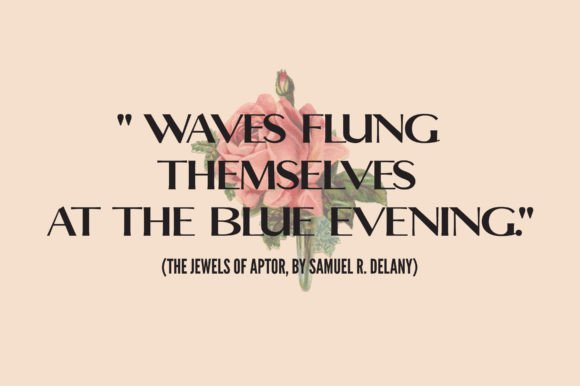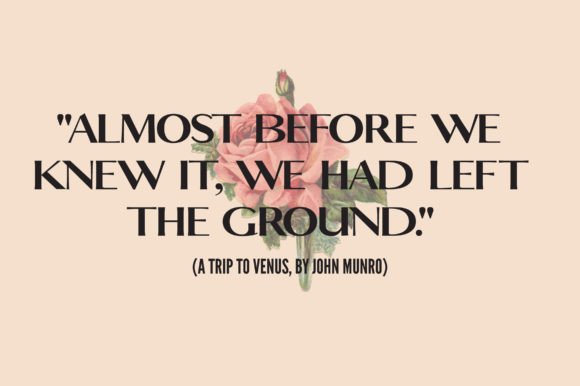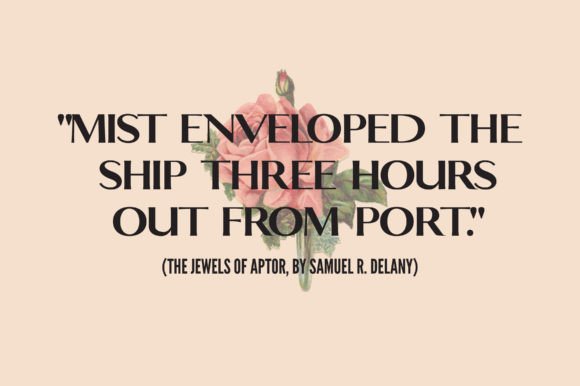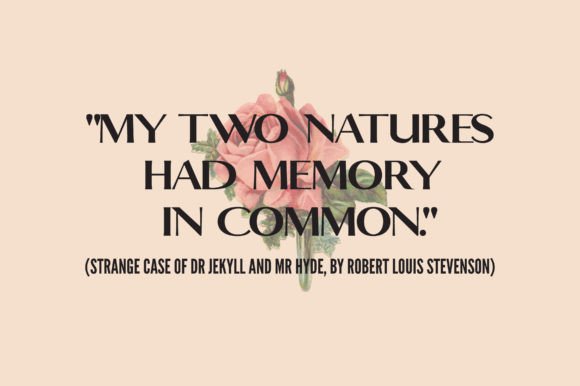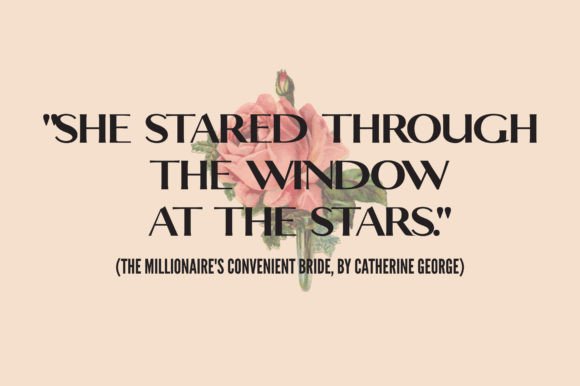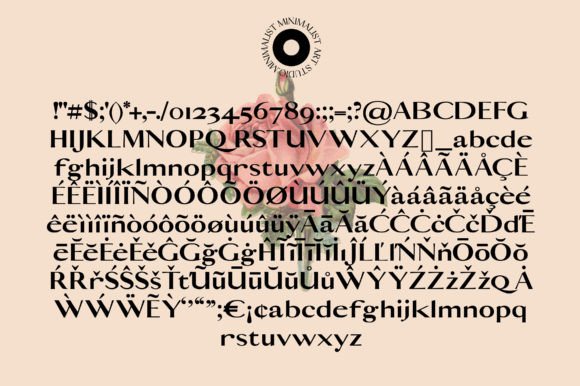
Introduction to Cecelia Font
Introducing Cecelia, an elegant, classy and chic serif font that will elevate any design project to the next level.
With its timeless design, Cecelia is perfect for creating stunning titles, captions, invitations, and other projects that demand sophistication and class The font features an attractive mix of traditional serif design and modern typography, resulting in a unique and eye-catching appearance.
Key Features of Cecelia Font